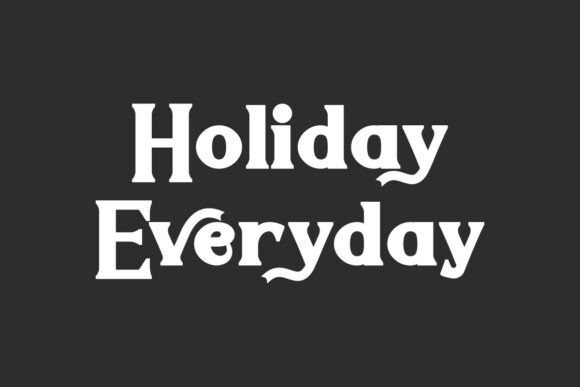
Holiday Everyday Font
Holiday Everyday Font is made to stand out. With bold lines, modern curves, and a creative balance between styles, it’s ideal for a wide range of uses — from seasonal branding and travel blogs to product packaging, greeting cards, and social media content.
Holiday Everyday Font is a playful, fun serif display font. This font has bold and clean characters that make it easy to read on the design. It would be good for brand logo, headline, invitation, magazine cover, poster, product packaging, screen print, signage, social media posts, stationery, sticker, website, and more!
This stylish fontis carefully crafted to create the perfect font so that it will be suitable for accommodation, advertisement, beauty product, cafeteria, crafts, fashion, photography, restaurant, spa, travel agency, etc.